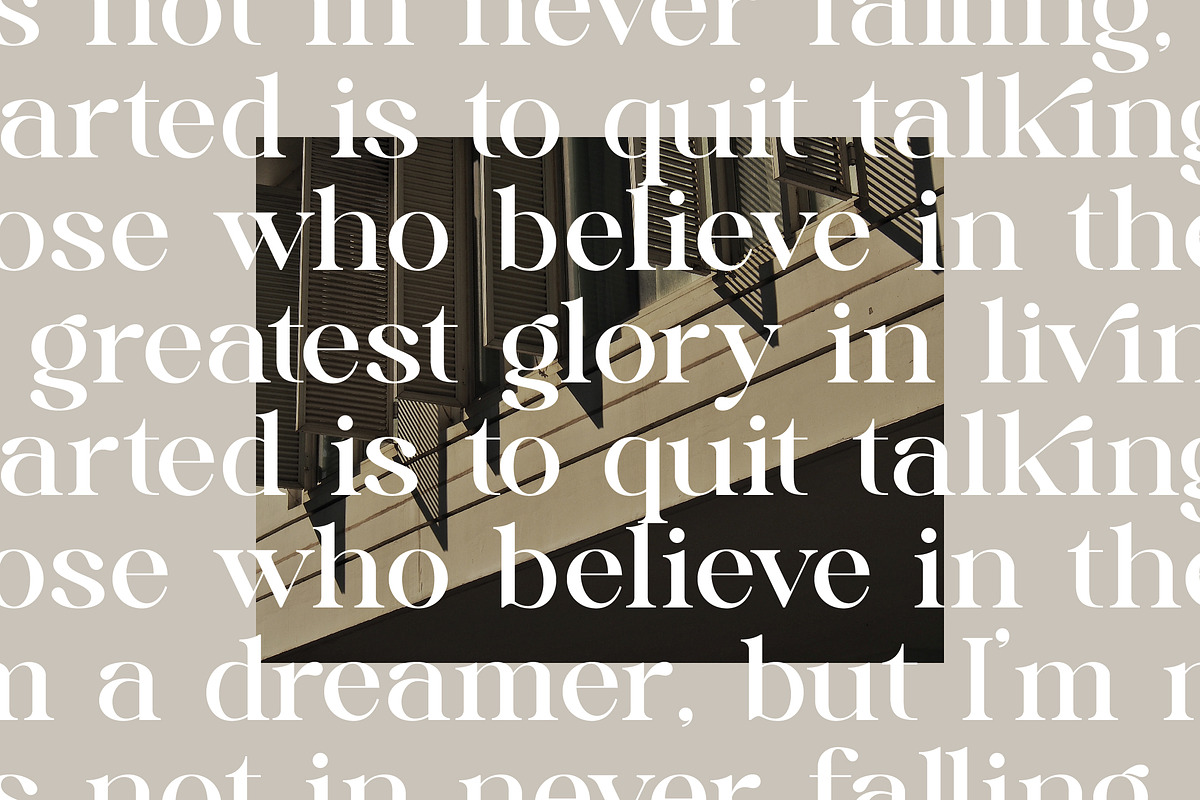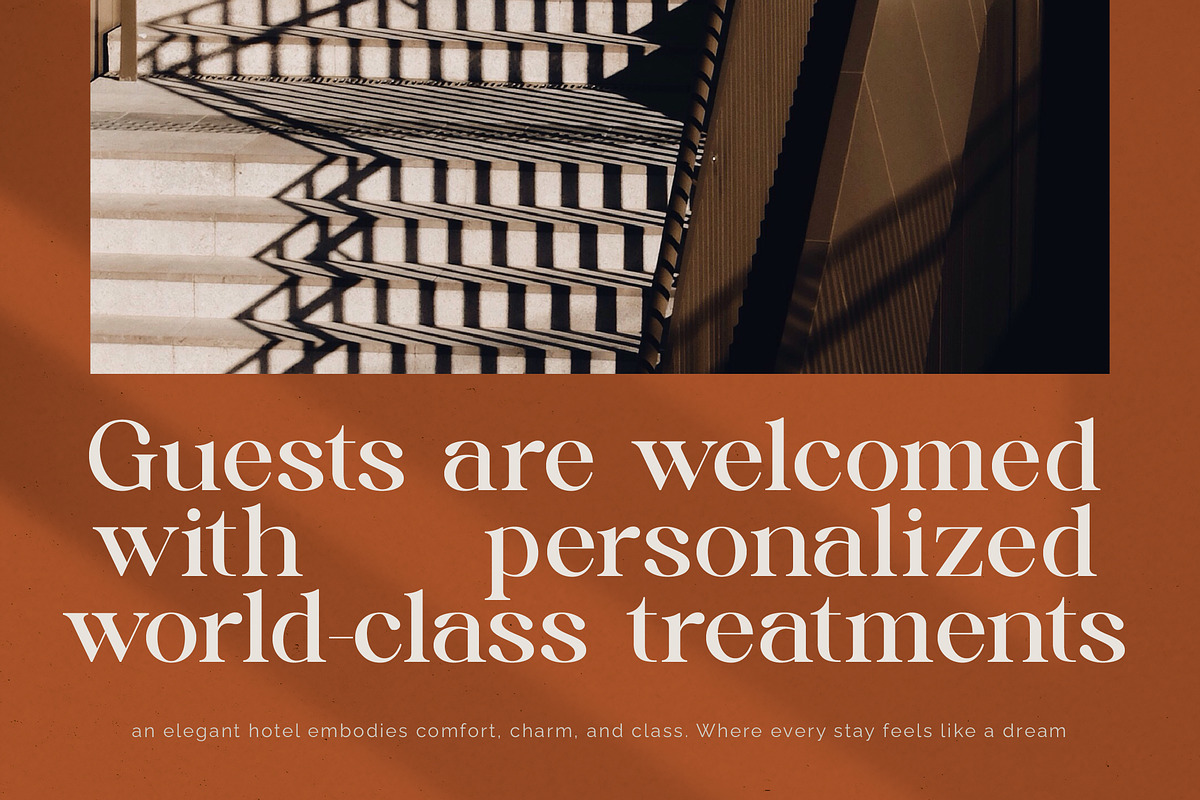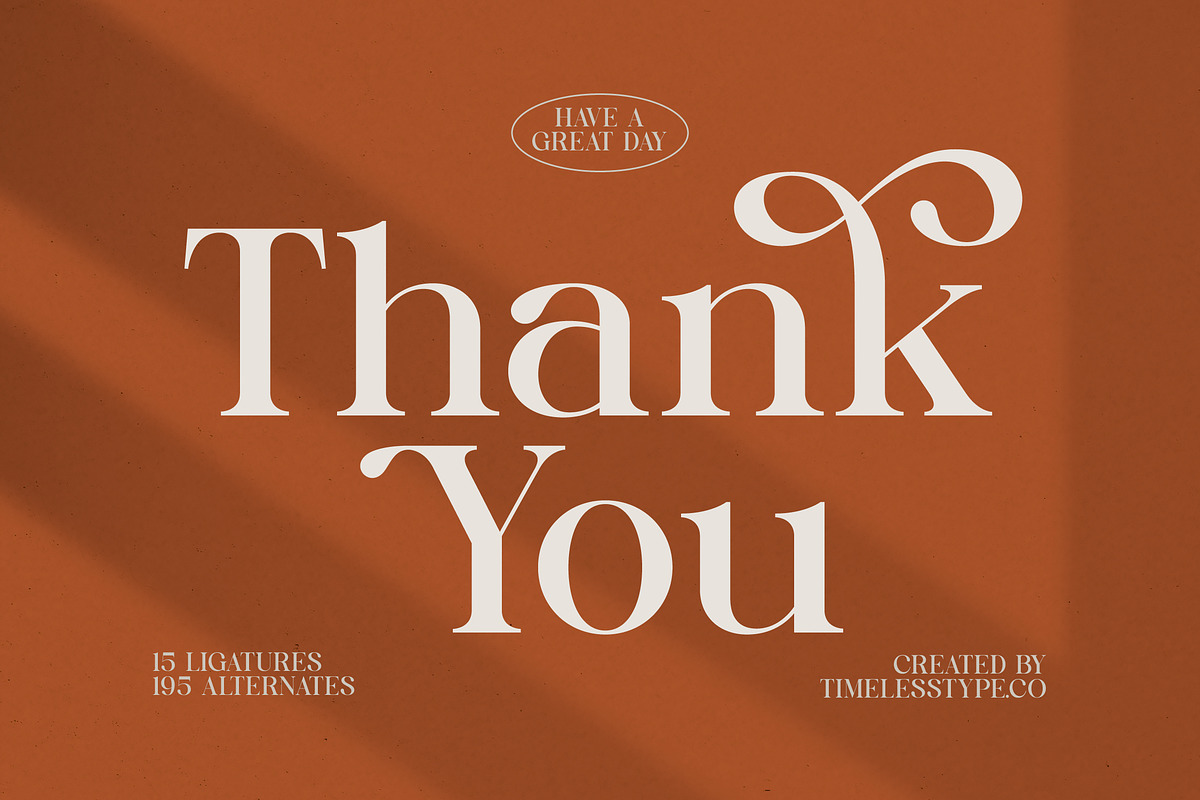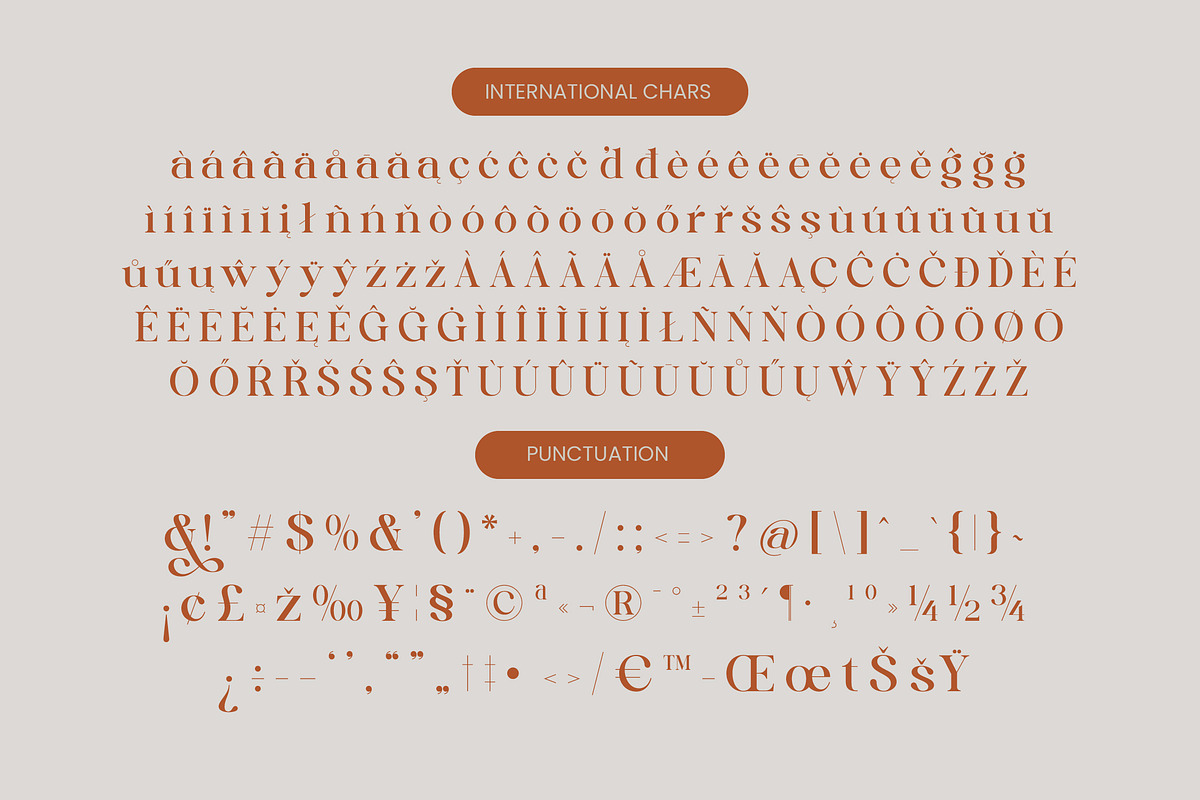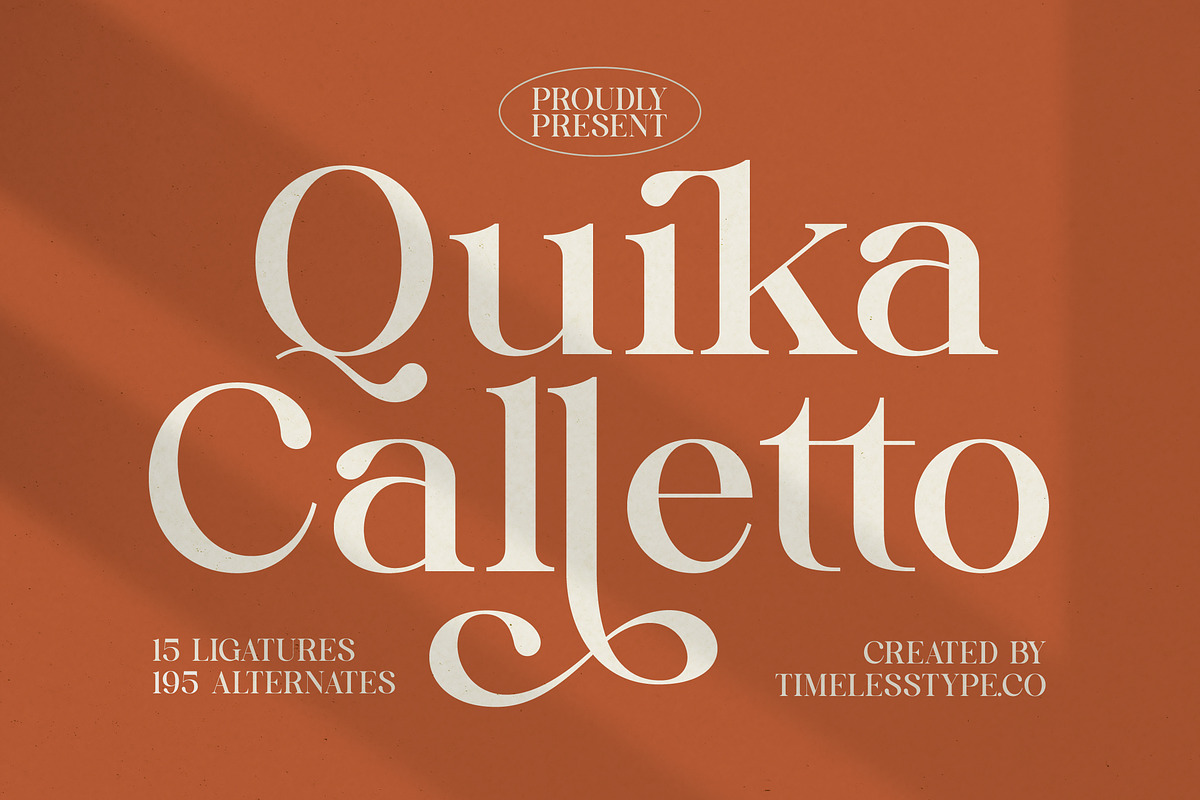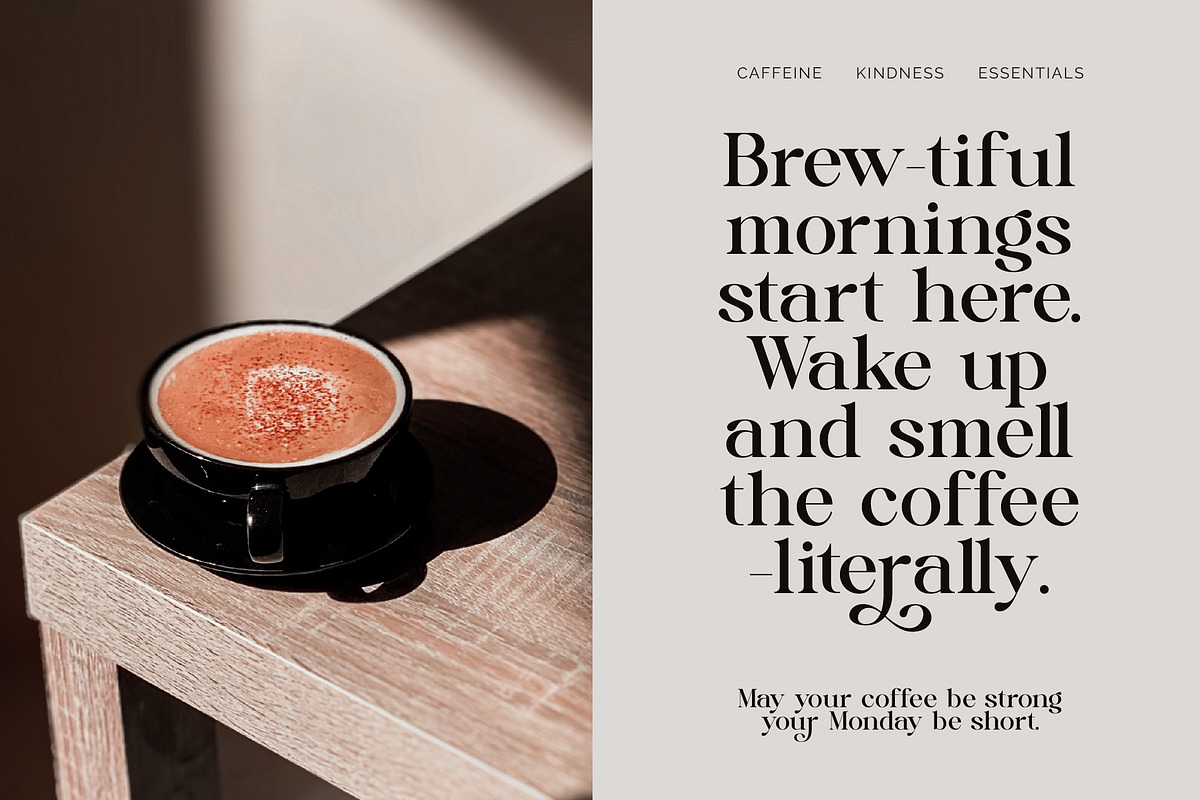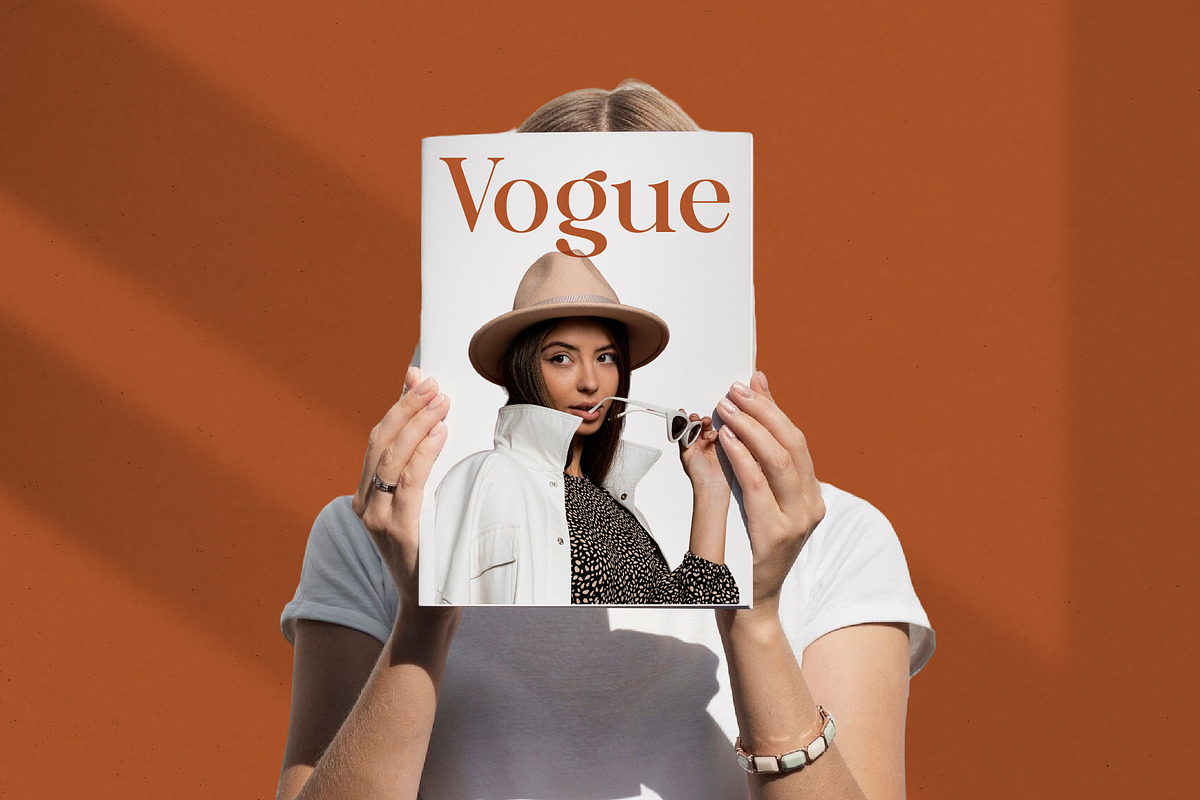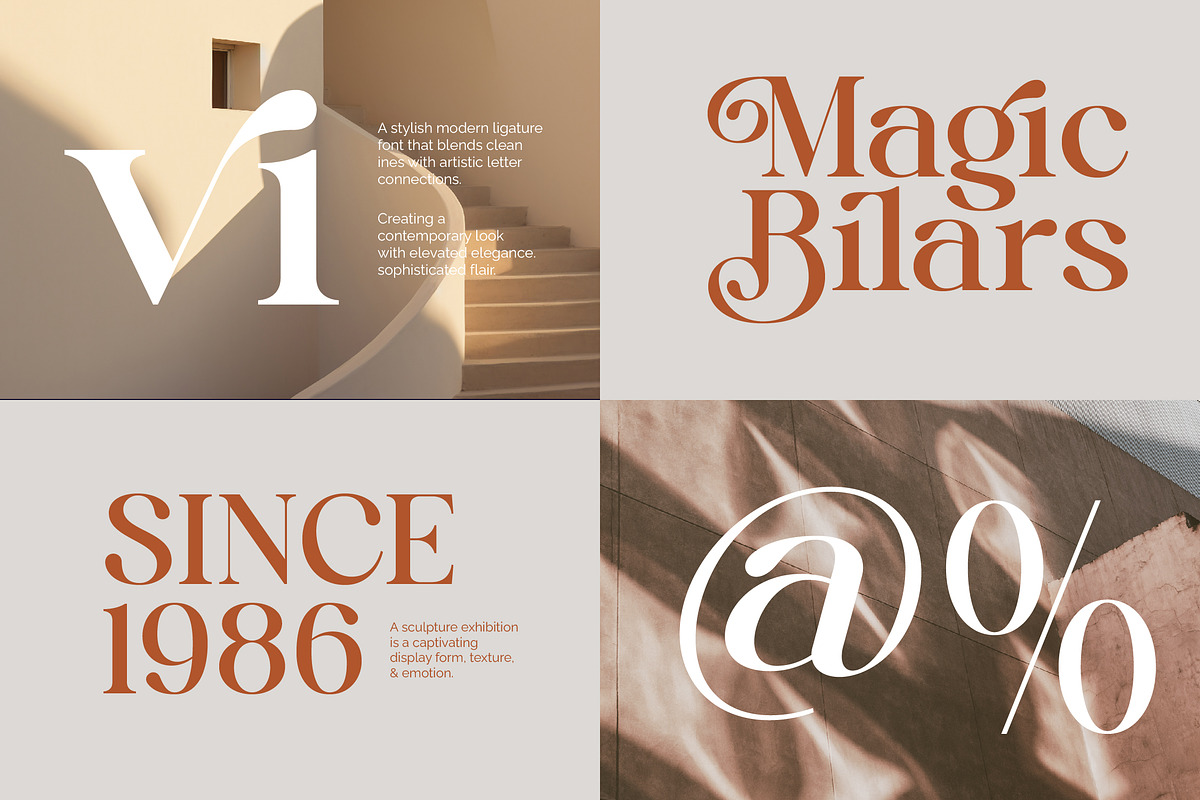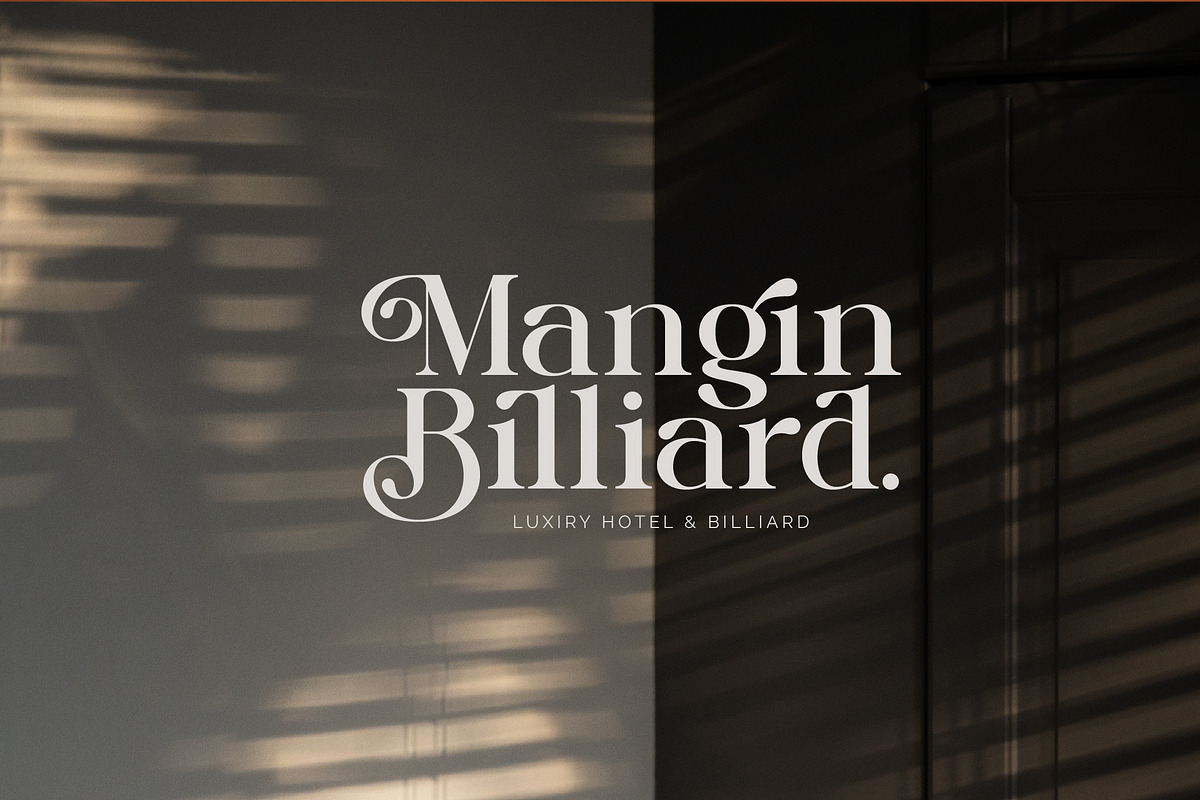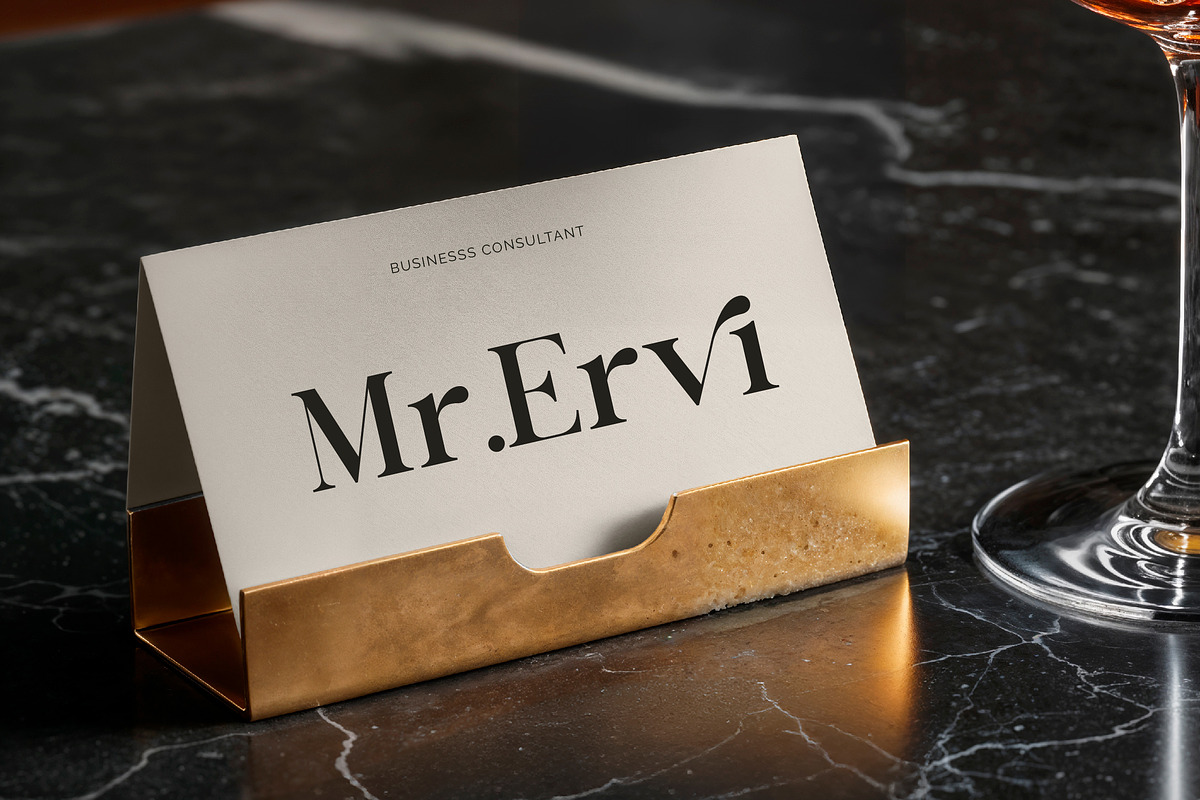
Quika Calletto Modern Serif Font
Elevate your visual storytelling with the timeless elegance of Quika Calletto. This typeface is a masterclass in sophistication, blending classic letterforms with a contemporary, high-fashion edge.
Drawing inspiration from the golden era of editorial design, this font captures the essence of chic boutiques and vintage magazine spreads. Its flowing curves and sharp serifs evoke a sense of heritage reimagined for the modern aesthetic.
This modern serif display exudes a refined charm that instantly transforms any layout into a piece of luxury typography. Its high-contrast serif strokes provide a dramatic branding impact, making it the ultimate editorial font for projects that demand attention and prestige.
Perfectly aligned with the current modern serif trend, this typeface addresses the growing demand for character-driven typography. It stands out among editorial display fonts by offering a unique balance of legibility and artistic flair that resonates with today's style-conscious audience.
Whether you are crafting a high-end logo design or developing a cohesive branding identity, this font delivers unparalleled versatility. It is the ideal choice for editorial layouts, luxury packaging, romantic wedding stationery, and avant-garde fashion campaigns.
Unlock endless creative possibilities with an extensive library of over 195 alternates and 15 elegant ligatures. Complete with graceful swashes, multilingual support, and a comprehensive set of international characters, this font ensures your message is felt across the globe.
- Ligature 15 Alternate 195